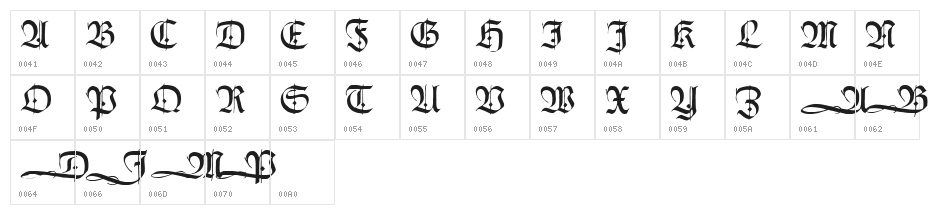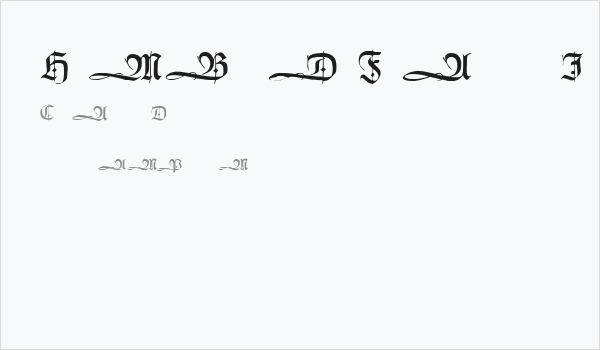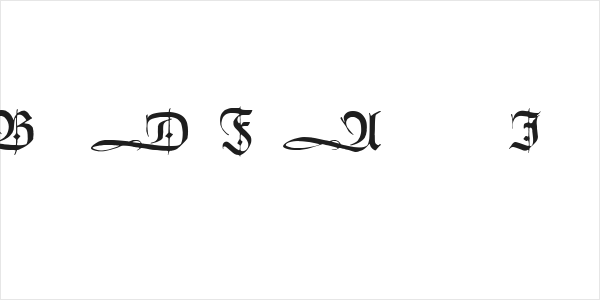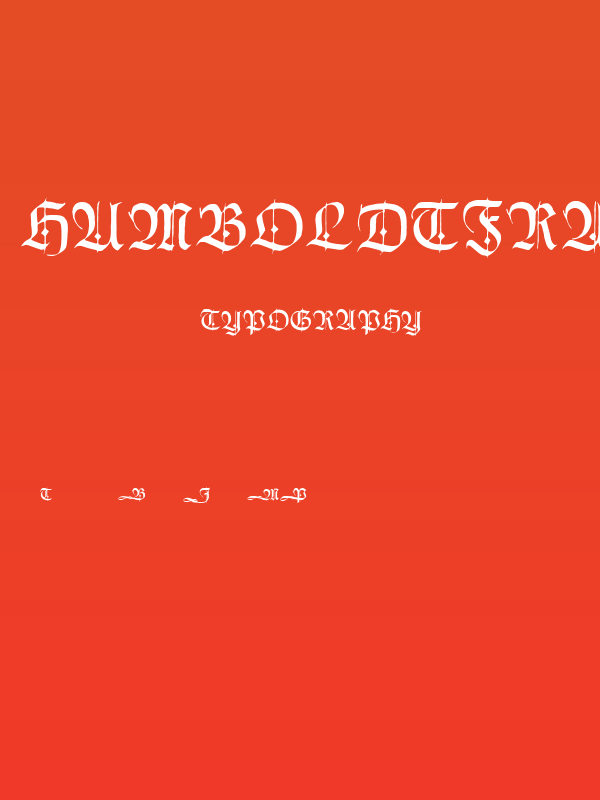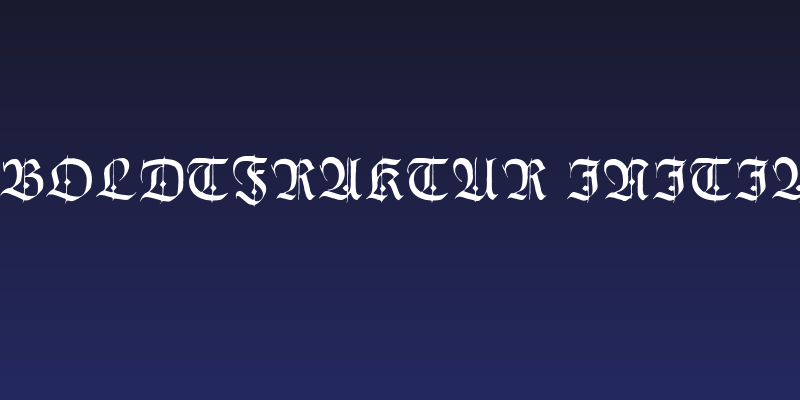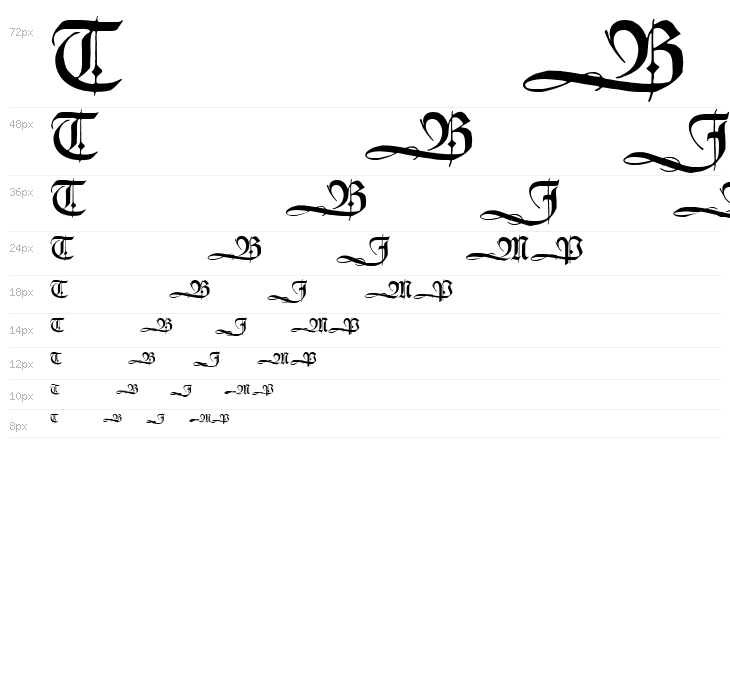
HumboldtFraktur Initialen Font
HumboldtFraktur Initialen Description
This font is a striking example of the Blackletter style, characterized by its intricate and ornate design. The letters feature sharp, angular lines with elaborate flourishes that extend from the main strokes, giving it a highly decorative appearance. The uppercase letters are particularly bold and commanding, with a sense of historical gravitas. The lowercase letters, while not fully visible, suggest a continuation of the ornate style seen in the uppercase. This font evokes a sense of tradition and antiquity, reminiscent of medieval manuscripts and Gothic architecture. The overall aesthetic is both dramatic and elegant, making it suitable for projects that require a touch of historical or classical flair.
| Use Case | Logos, Headlines, Decorative purposes |
| Proposed Projects | Ideal for historical documents, wedding invitations, book covers, or any project requiring a classical or medieval touch. |